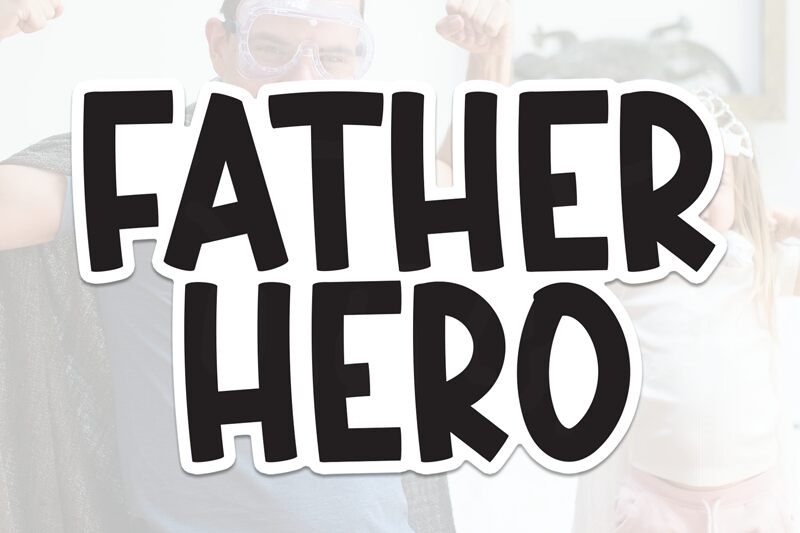
FATHER HERO
Father Hero font, designed by Scratchones, is a display font that seamlessly blends a playful cartoon style with an organic feel. Its rough texture and hand-drawn appearance give it a casual aesthetic perfect for artistic projects seeking a whimsical touch. The overall vibe is approachable and fun, making it ideal for varied creative endeavors.
This free display font is suitable for cartoon graphics, children's book illustrations, comics, posters, educational materials, greeting cards, branding projects with a cheerful tone, product packaging aimed at younger audiences, websites or blogs centered on kids' content, playful social media graphics, or animated stories.